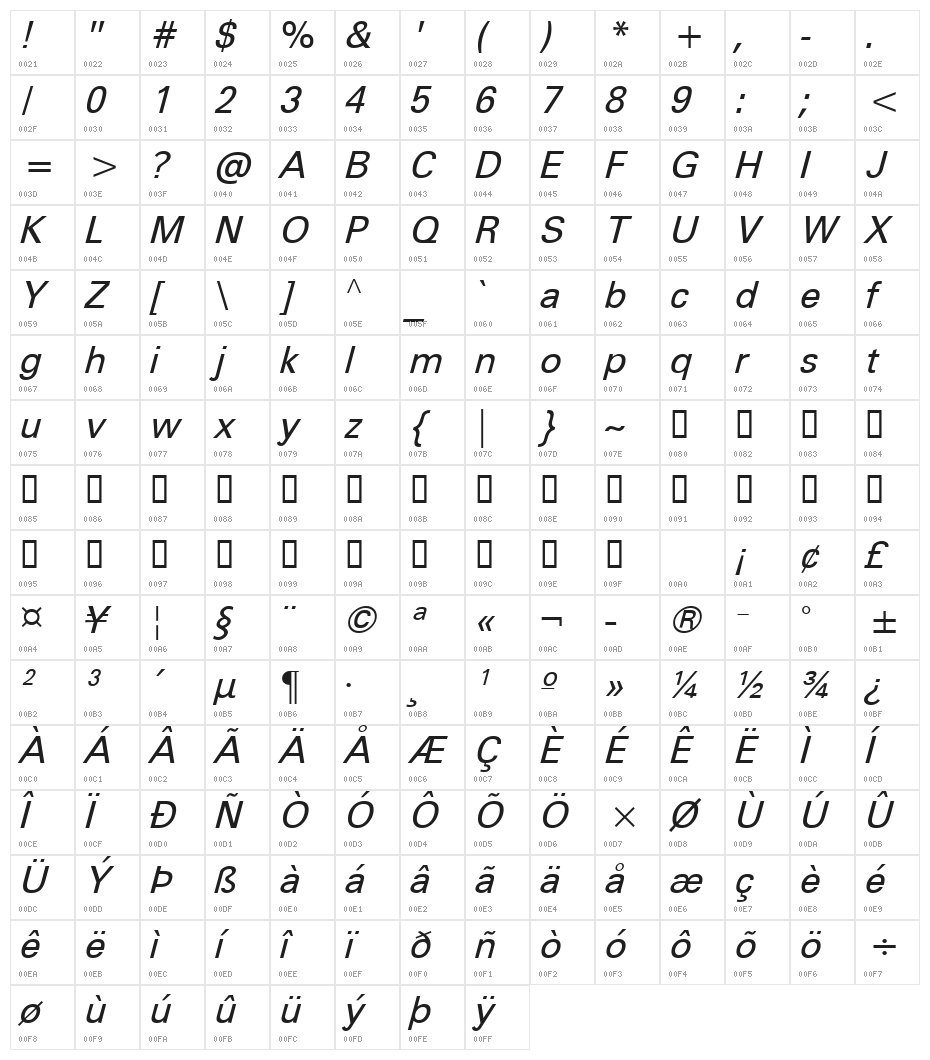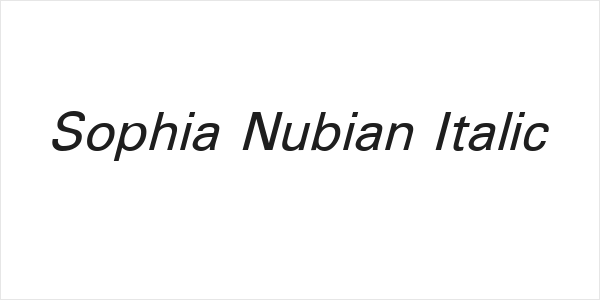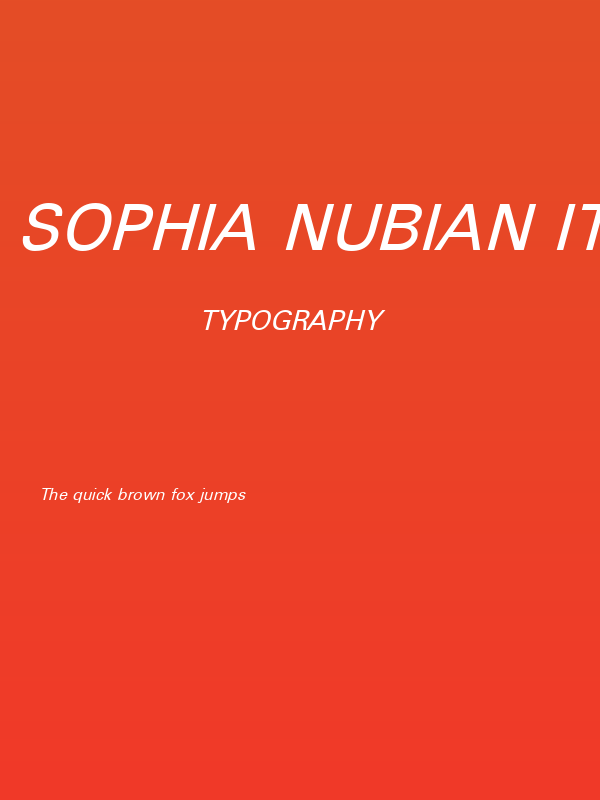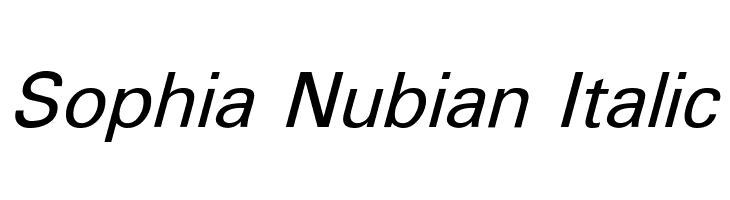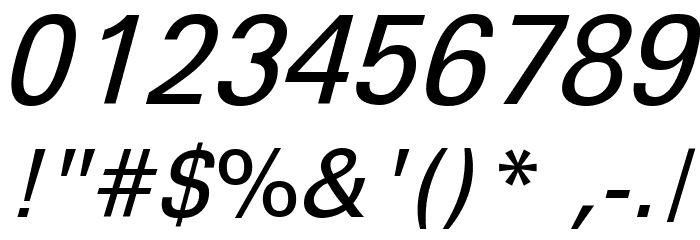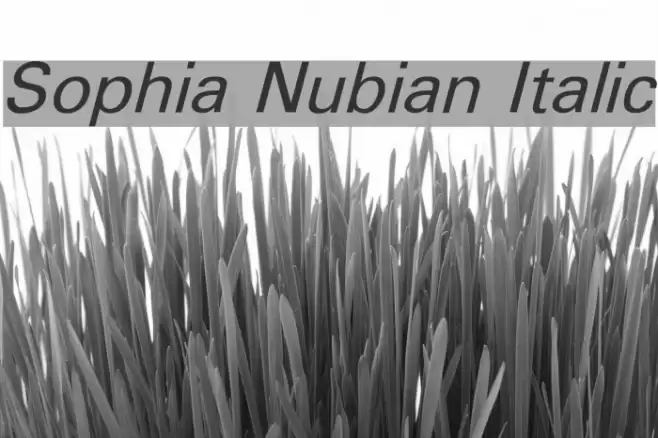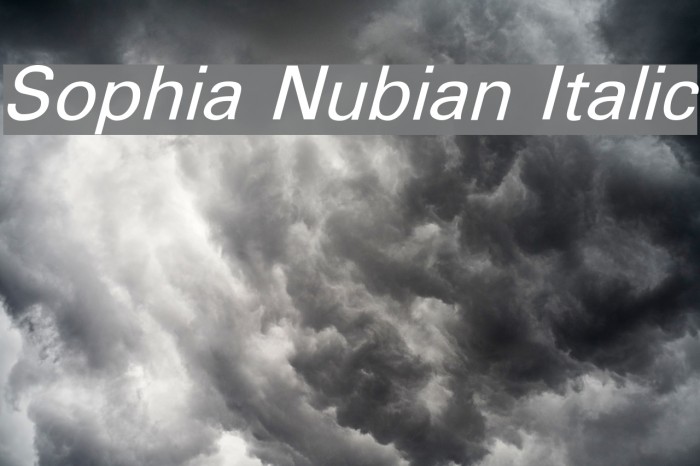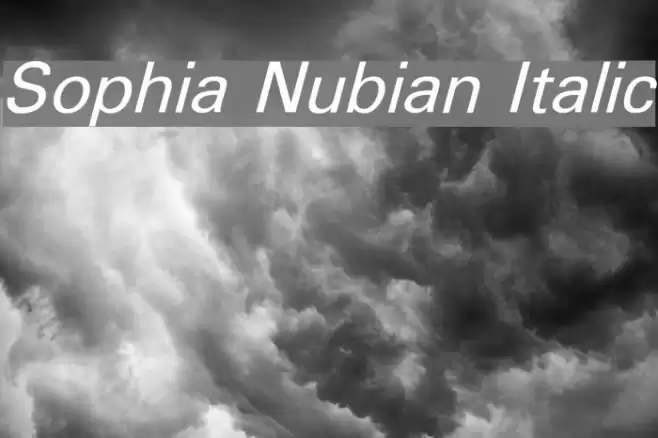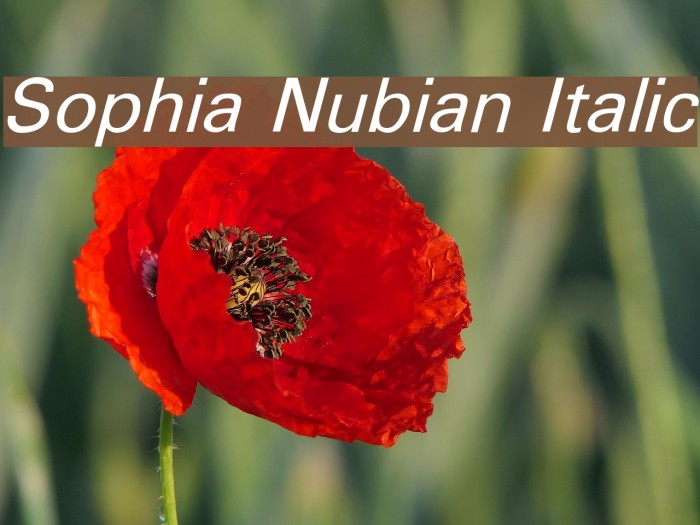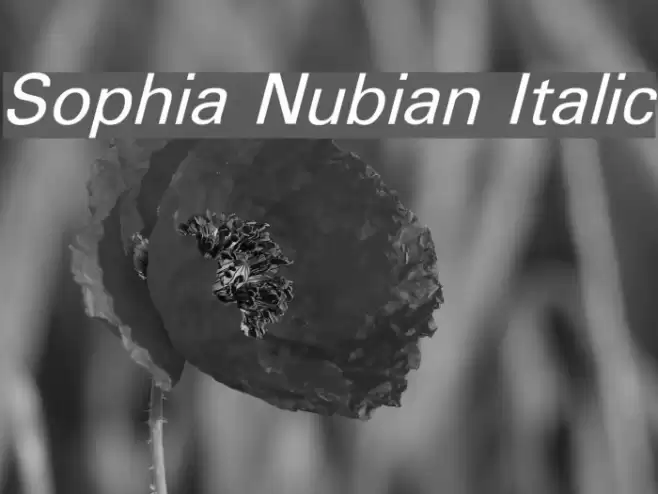
Sophia Nubian Italic Font
Sophia Nubian Italic Description
This font exhibits a sleek and modern design with a subtle italic slant, giving it a dynamic and forward-moving appearance. The characters are well-proportioned, with a consistent stroke width that maintains readability across various sizes. The uppercase letters are bold and authoritative, while the lowercase letters are smooth and elegant, providing a nice contrast. The numerals are clear and distinct, making them suitable for both text and numerical data. Special characters are well-integrated, ensuring versatility in different contexts.
| Proposed Projects | Ideal for branding, advertising, and editorial design where a modern and dynamic look is desired. |